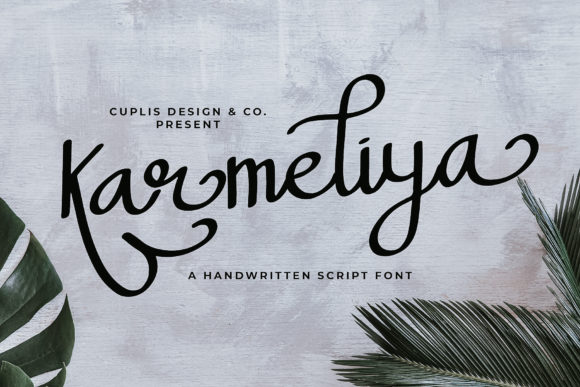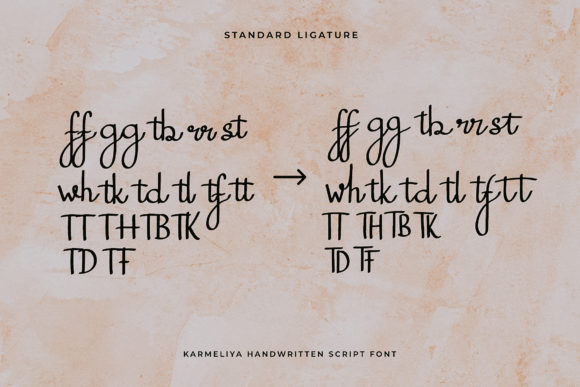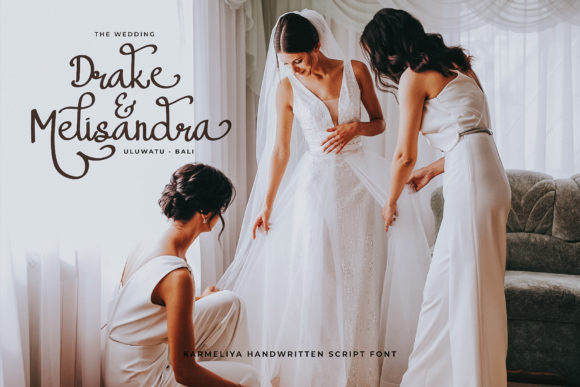
About Karmeliya Font
Karmeliya is an elegant and stylish handwritten script font. Use this beautiful and unique font for creating outstanding logos, labeling, clothing, wedding invitations, quotes, blog titles, youtube video titles, album covers, and much more. This font is PUA encoded which means you can access all of the glyphs and swashes with ease!